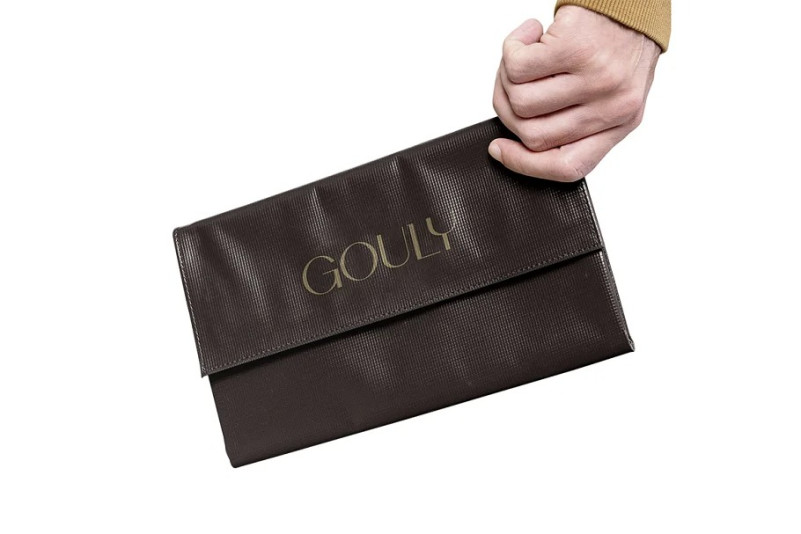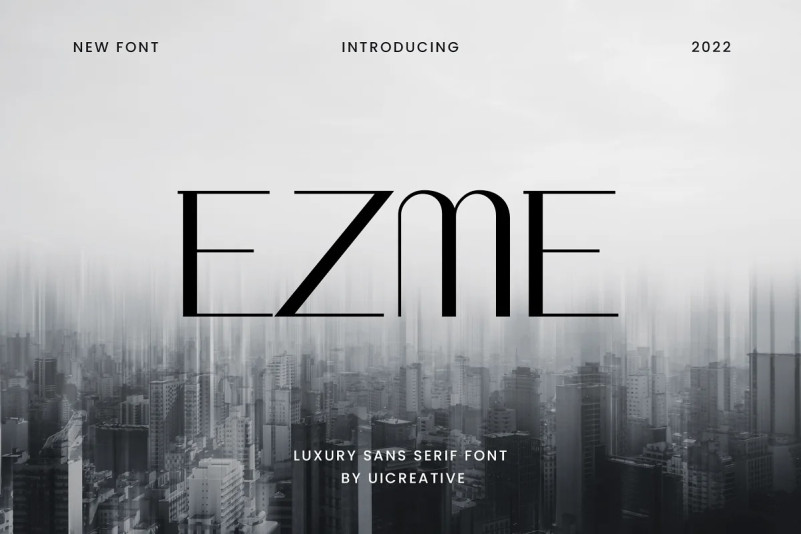
Ezme Font
Ezme Luxury Font – Sans Serif Font. Modern Serif font that feels beautiful classy, elegant, and modern. This font is perfectly suited for a wide variety of projects, such as signature, stationery, logo, wedding, typography quotes, magazine or book covers, website headers, clothing, branding, packaging design, and more. Also, fashion-related branding or editorial design displays both masculine and feminine qualities.